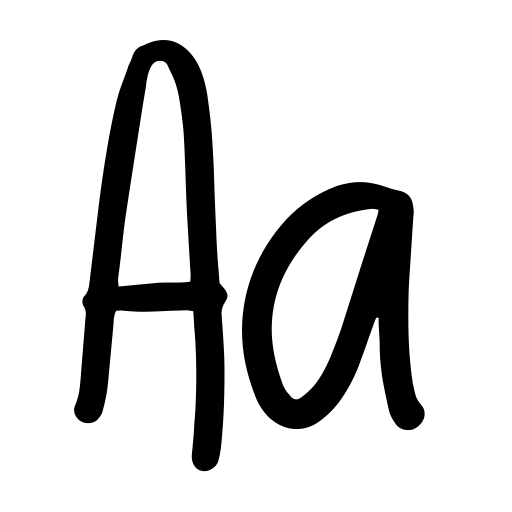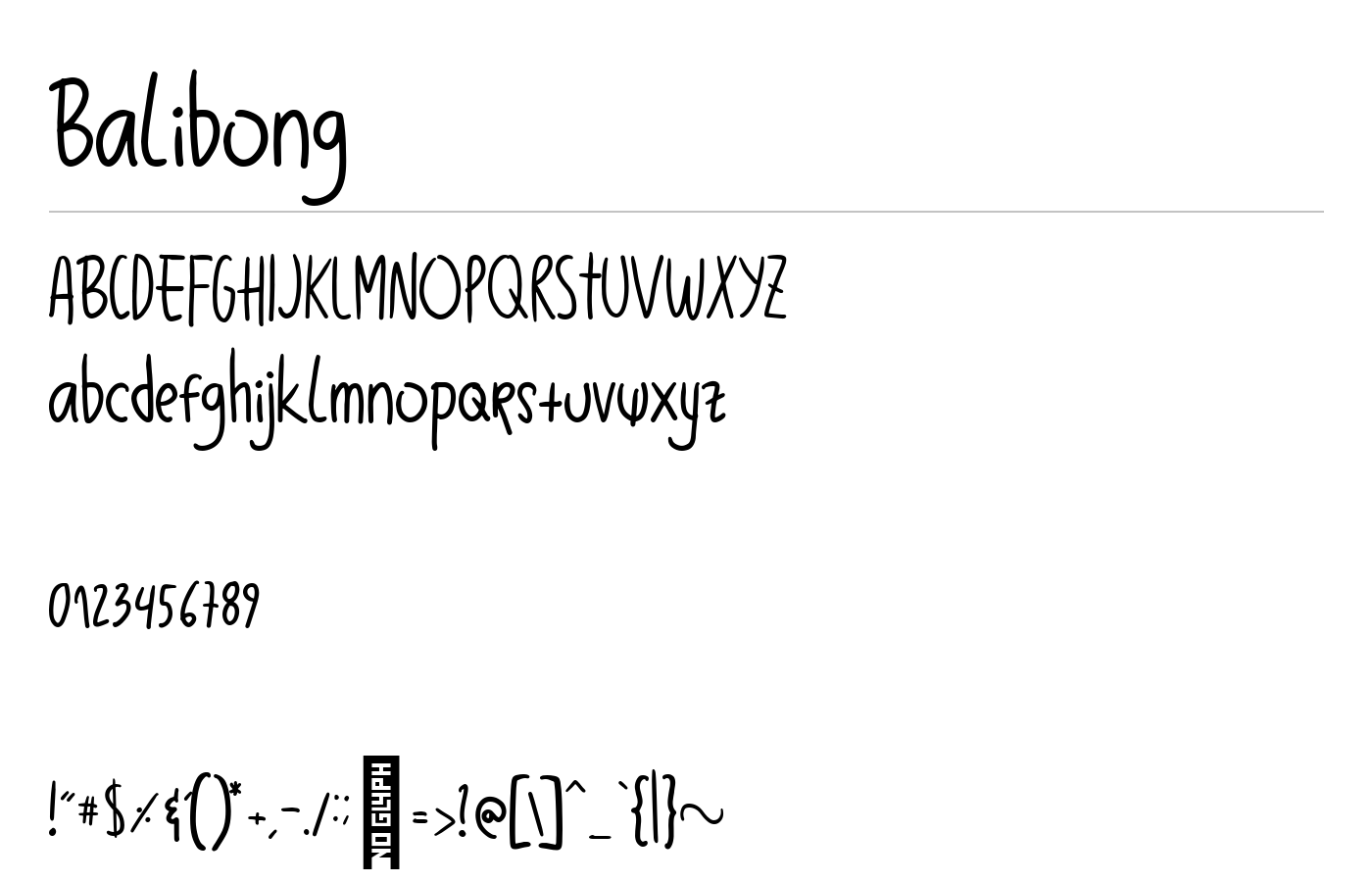
Balibong is a playful, hand-drawn sans serif font with a tall, narrow structure and a casual, friendly feel. Its irregular strokes and whimsical letter shapes make it ideal for creative, informal designs such as children's books, greeting cards, and personal branding, where a fun and approachable tone is desired. This font works best in headlines or short text, bringing a unique and lively character to any project.
Balibong Font
About Balibong Font
| Font family | Balibong Font |
| Designer | Made Arini Hanindharputri |